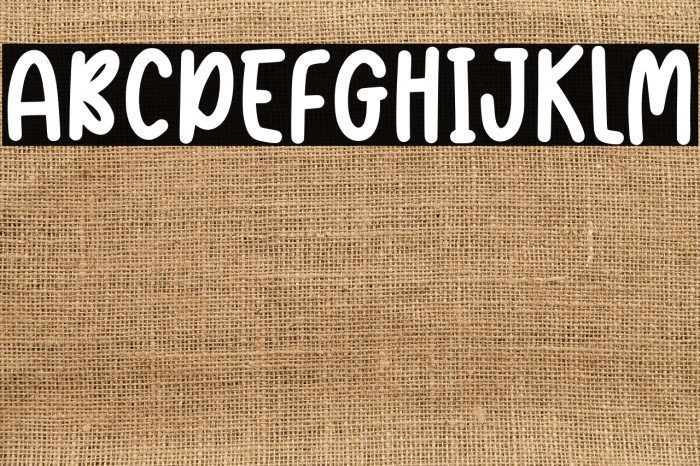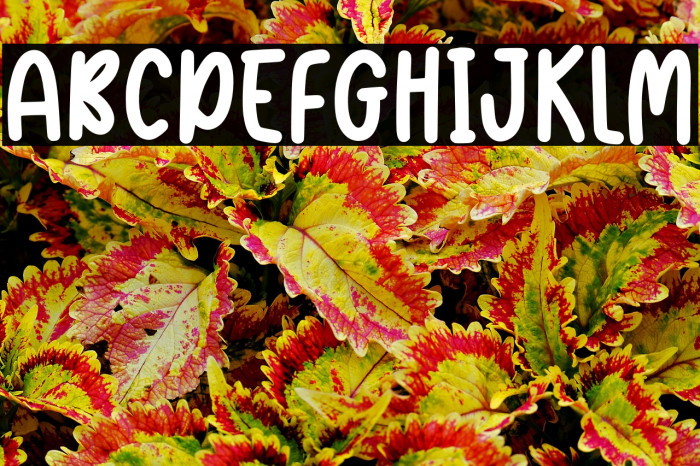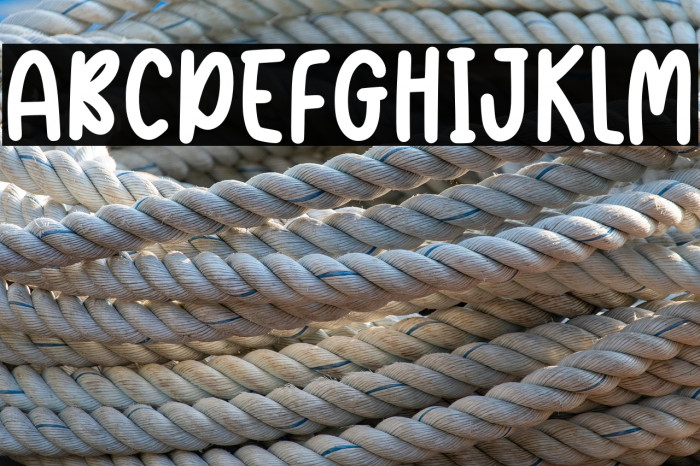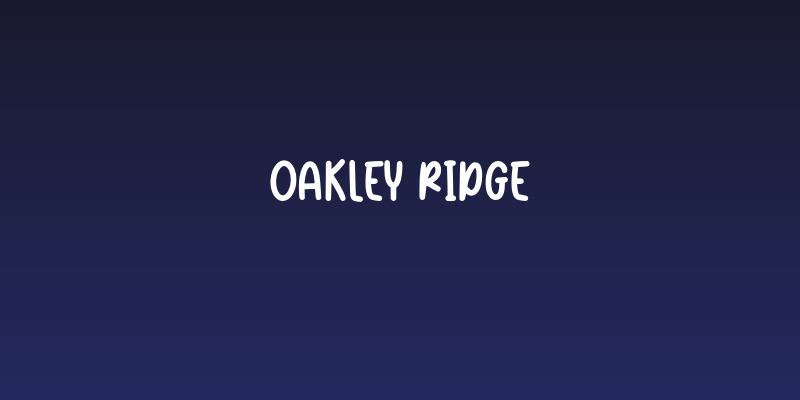
Oakley Ridge Font
This playful and bold font features a handwritten style with smooth, rounded edges and a consistent stroke width. The characters are slightly condensed, giving it a compact appearance while maintaining readability. The uppercase and lowercase letters are well-balanced, with a casual and friendly vibe. The numbers and special characters follow the same style, ensuring a cohesive look across all text elements. This font is ideal for projects that require a personal touch, such as invitations, greeting cards, or playful branding.
| Width | Condensed |
| Overall Style | Playful |
| Use Case | Headlines, Logos, Casual Text |
| Proposed Projects | Ideal for invitations, greeting cards, playful branding, and casual posters. |